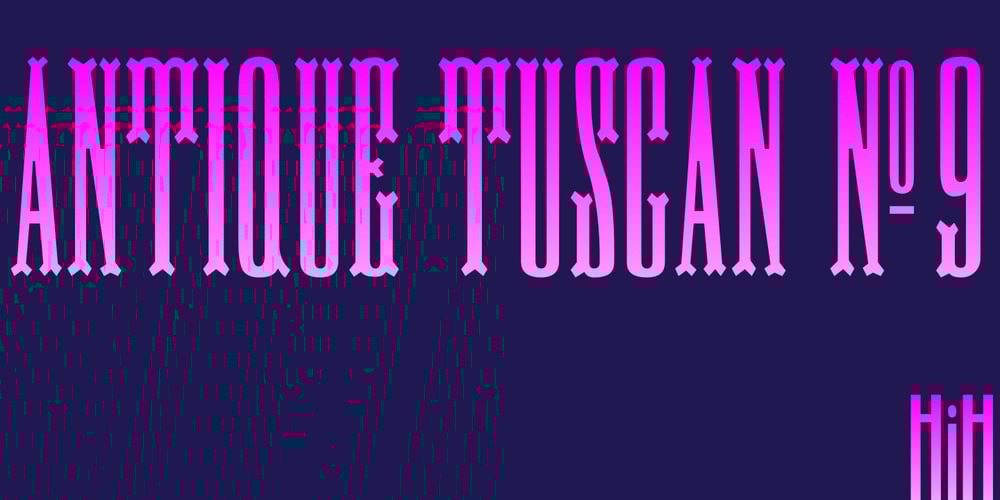
Antique Tuscan No 9 Font Family was designed by William Hamilton Page and published by HiH. Antique Tuscan No 9 contains 1 styles and family package options. Antique Tuscan No.9 was one of the earlier wood-type designs by William Hamilton Page. It was first shown among the specimens produced in 1859, shortly after Page entered into a new partnership with Samuel Mowry, owner of the Mowry Axle Company. The new company was named Page and Company and was located at the Mowry facility in the Greenville section of Norwich, Connecticut. Antique Tuscan No.9 is an extra-condensed version of the tuscan style that had been released in moveable type by Vincent Figgins of London in 1817 and had become so popular for advertising in the intervening years. Because of the extreme compression in the design, we might be tempted to describe it as “Triple-X,” but that might be misleading. The analogy would, of course, be to clothing sizes, not movie ratings. Because of the compression, this typeface reads best when set extra-extra-extra large. For printing, we recommend 36 points or larger. For the screen, we suggest at least 72 points. An unusual and distinctive design, it is best used with discretion. If I were doing a term paper for school or submitting an article to a magazine for publication, I might use it for the title page, to grab someone’s attention. I would certainly not use it for the main body of text – not if I expected anyone to read what I wrote. If you wonder why we make this recommendation, take the Ten-Point challenge. Print this paragraph using Antique Tuscan No.9 and set the font size at 10 points. If you are young and blessed with good eyesight, you will probably be able to read it – with effort. So, here is the challenge: hand it to your Grandmother and ask HER to read it.